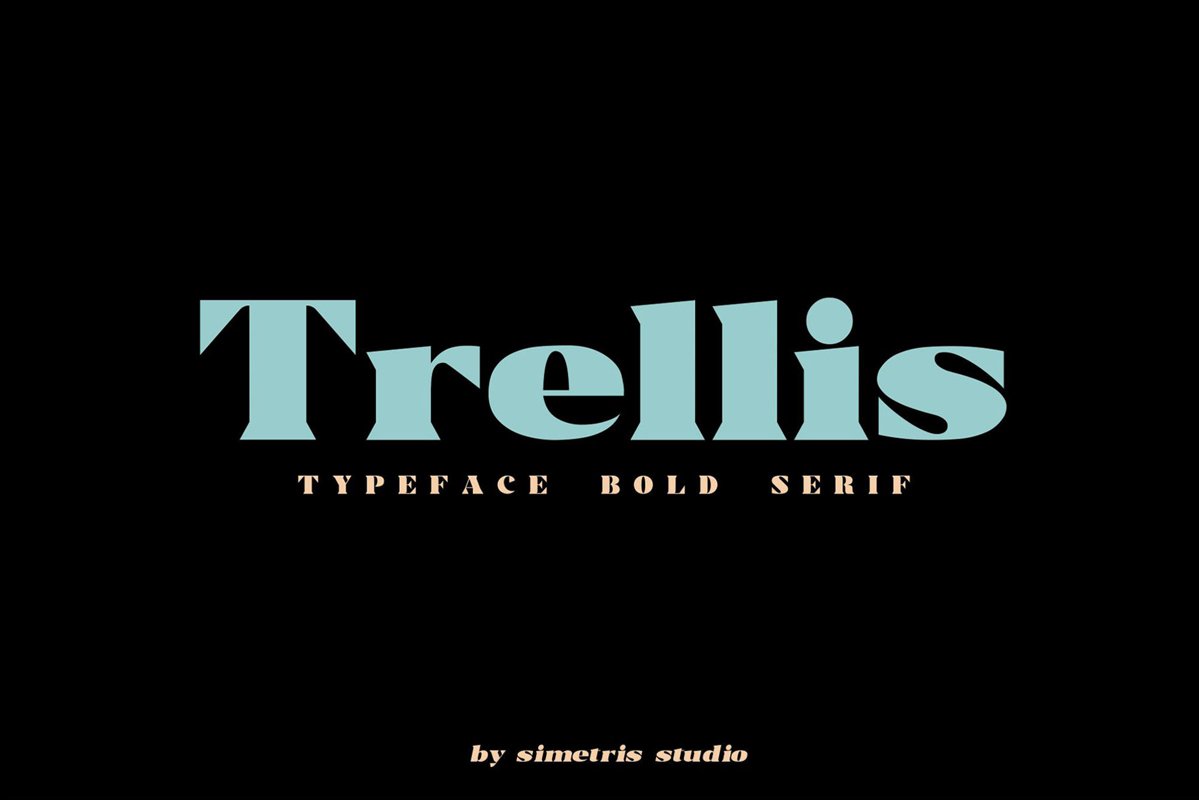
Trellis -Typeface Bold Serif
Trellis Italic
Trellis
Trellis Line
Trellis Line Italic
Trellis//Typeface Bold Serif is a wedge serif font that is sure to stand out! A little bit retro and a bit modern, Trellis is great for logos, editorial or web design. The unique sharp serifs mixed with thin strokes give off a bold mid century architectural vibe.